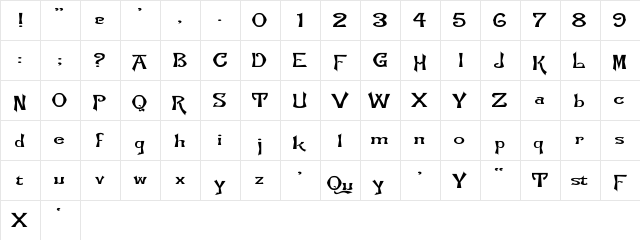
Flemish-Normal Ex Regular
Design Context for Flemish-Normal Ex Typeface
Flemish-Normal Ex is a composed and adaptable typeface that performs quietly and consistently across a wide range of design contexts.